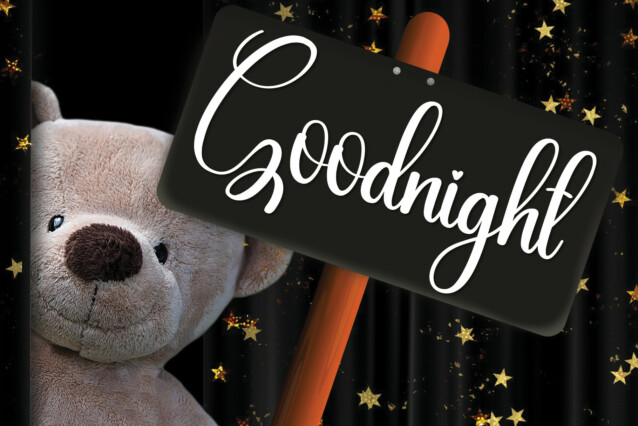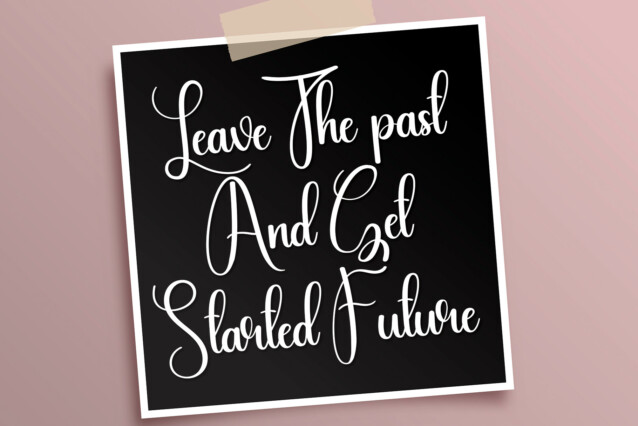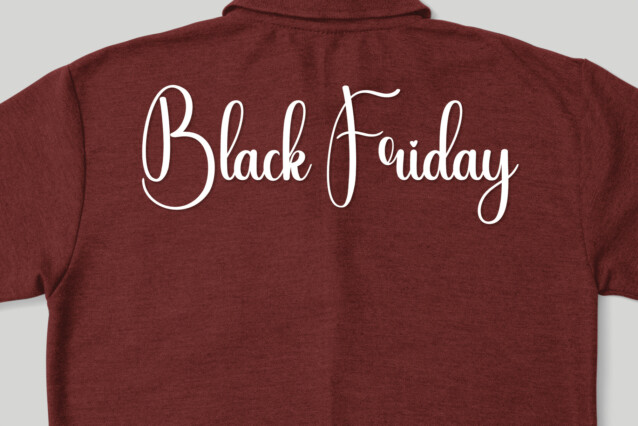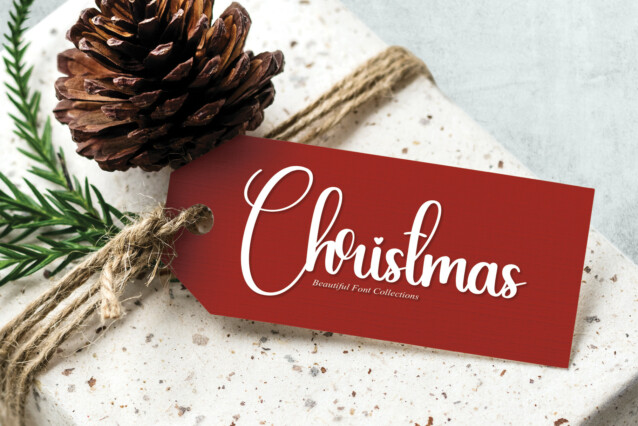
Valentine Calligraphy Typeface
Valentine Calligraphy Typeface is a delicate and elegant handwritten font. Its distinct and well-balanced letters make this font a masterpiece. Fall in love with its incredibly versatile style and use it to create spectacular designs!